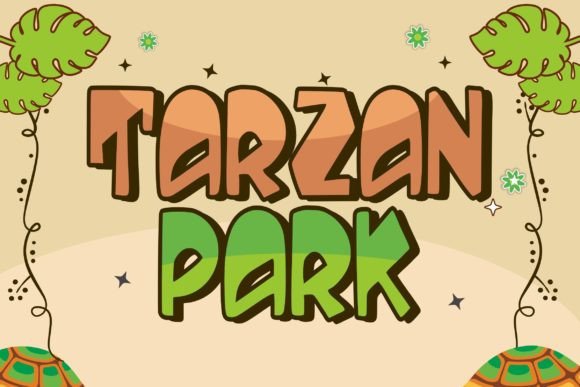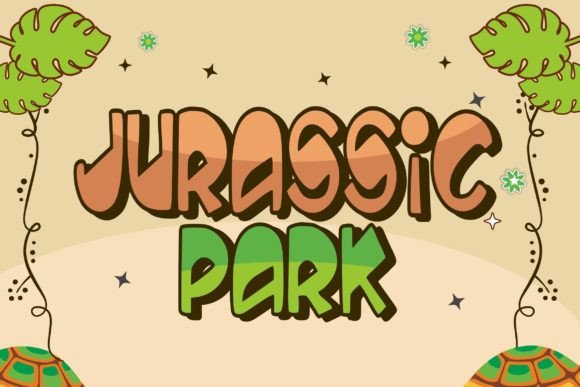
Introduction to Ninja Turtles Font
Remember that moment when you stumbled upon the perfect font for your creative project? The one that takes your design from ordinary to extraordinary? For designers, finding the right font can be a game-changer. And for those who love the quirky and playful, the Ninja Turtles Font is sure to bring a smile to their faces.
This charming ninja font is not just a pretty face – it’s a high-quality design resource that adds a touch of whimsy to any project. With its bold lines and playful curves, it evokes a sense of nature and nostalgia, reminiscent of the lurid styles of the past. Whether you’re working on a poster, logo, comic, or animation, the Ninja Turtles Font is a free download that’s sure to elevate your design to the next level.
Ninja Turtles Font
- High-quality, bold, and playful font perfect for creative projects.
- Features a transparent background, allowing for seamless integration into various designs.
- Designed with a unique, hand-drawn style reminiscent of the iconic Ninja Turtles characters.
- Includes a range of glyphs and characters, including uppercase and lowercase letters, numbers, and special symbols.
Honest Review: Ninja Turtles Font
As a designer, I’ve come across a wide variety of fonts that can bring a creative project to life. One font that caught my eye is the Ninja Turtles Font. In this review, I’ll share my honest thoughts on this font.
- High-quality design: The Ninja Turtles Font is well-crafted, making it perfect for use in a variety of creative projects.
- Transparent background: The font’s transparent background makes it easy to use in graphic design software.
- ⚠️ Limited character set: The font’s character set is limited, which may not be suitable for projects that require a wide range of characters.
- ⚠️ Not suitable for body text: The font’s design makes it better suited for headlines and titles rather than body text.
Overall, I’m impressed with the Ninja Turtles Font’s design quality and the fact that it’s free to download. While it may have some limitations, it’s still a great resource for designers looking to add some fun and creativity to their projects.
- Use the font in combination with a transparent background to create a unique and eye-catching design.
- Experiment with different font sizes and colors to add depth and visual interest to your project.
The Ninja Turtles Font is suitable for various creative projects, including:
- Logo creation
- Poster design
- Merchandise design
Q: Is the Ninja Turtles Font a high-quality design resource?
Yes, the Ninja Turtles Font is a high-quality design resource that is carefully crafted to meet the needs of designers and artists. It features a unique and recognizable design that is sure to add a touch of fun and creativity to any project. Whether you’re working on a commercial project or a personal creative project, the Ninja Turtles Font is a great choice.